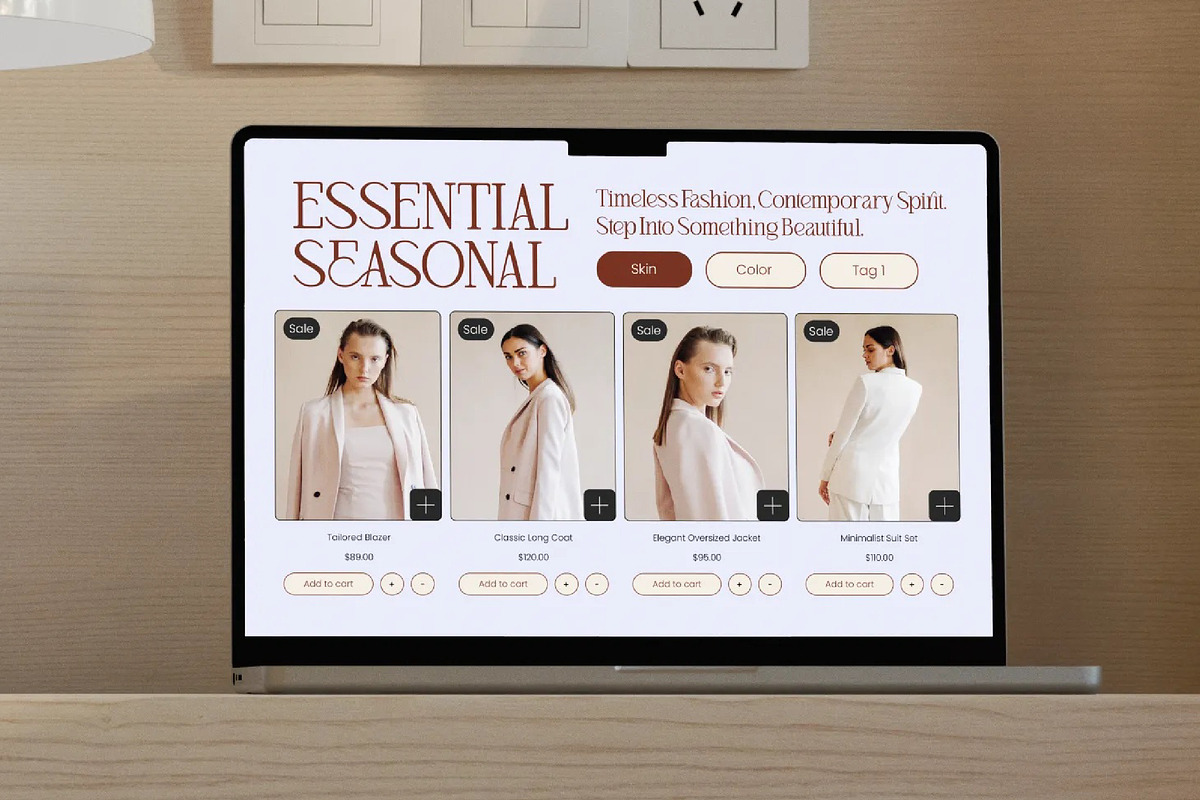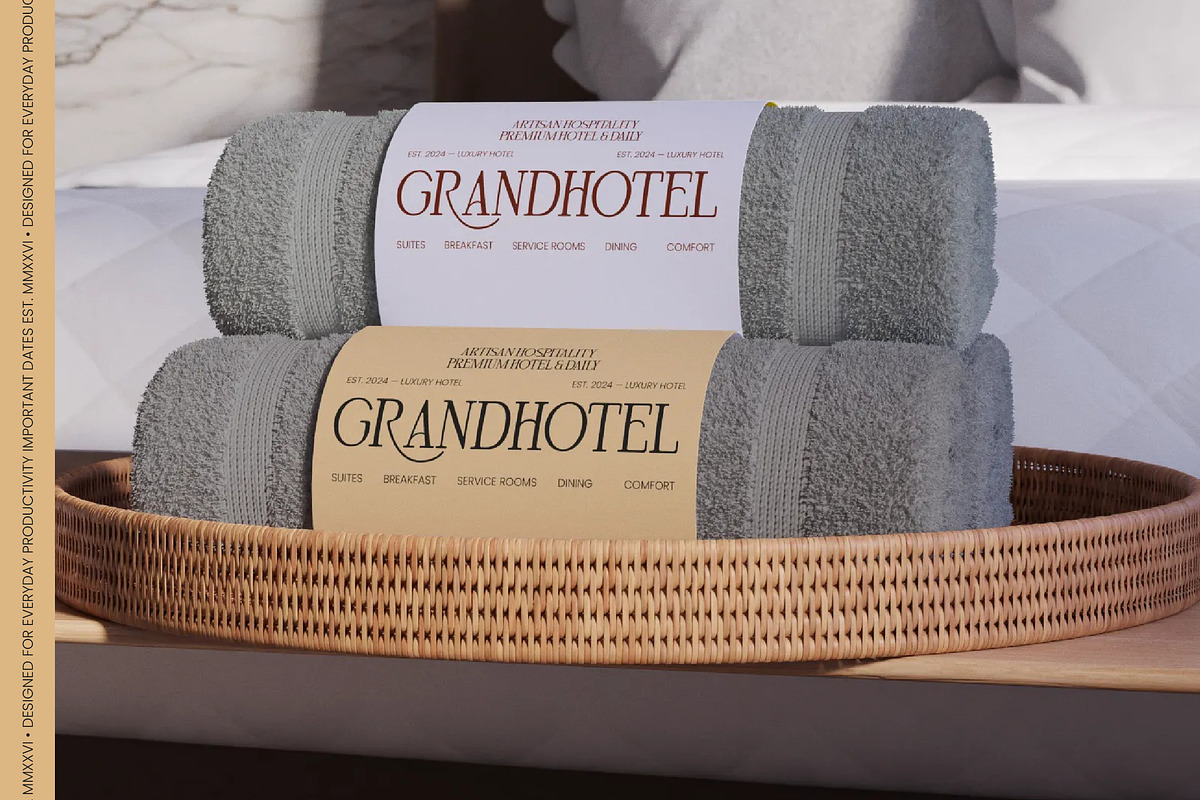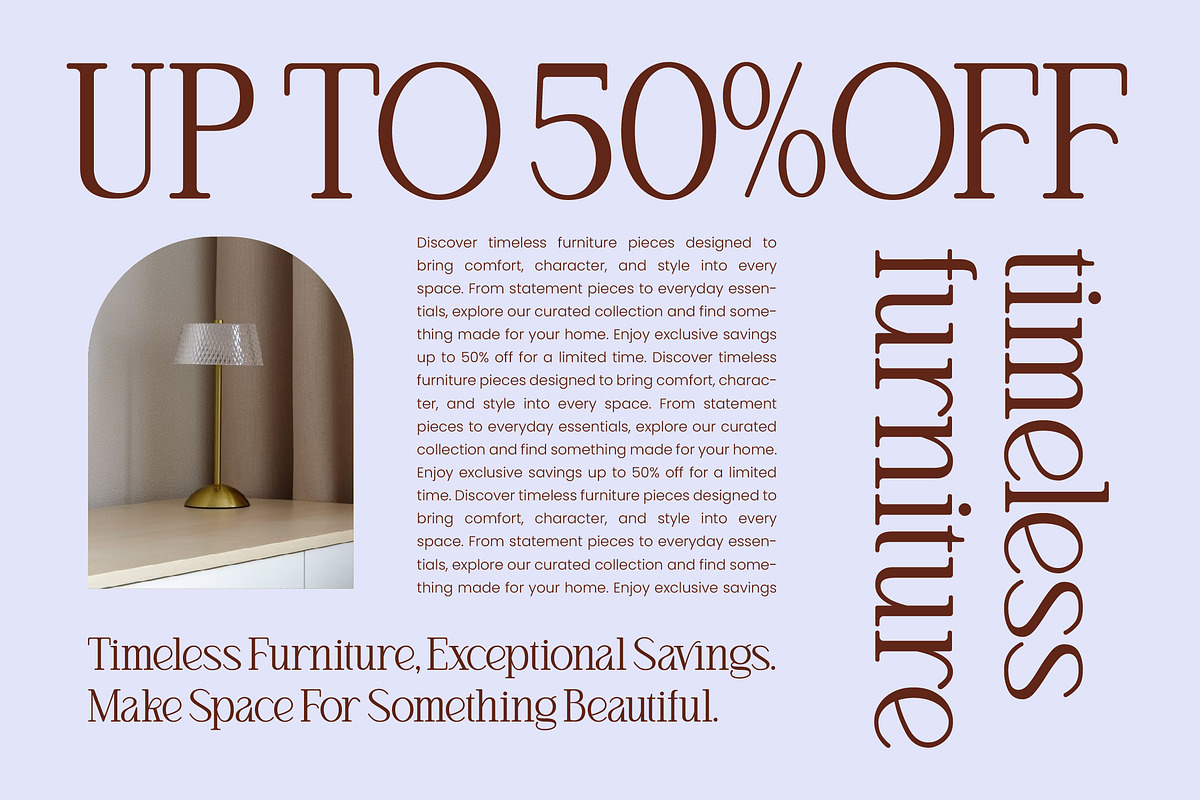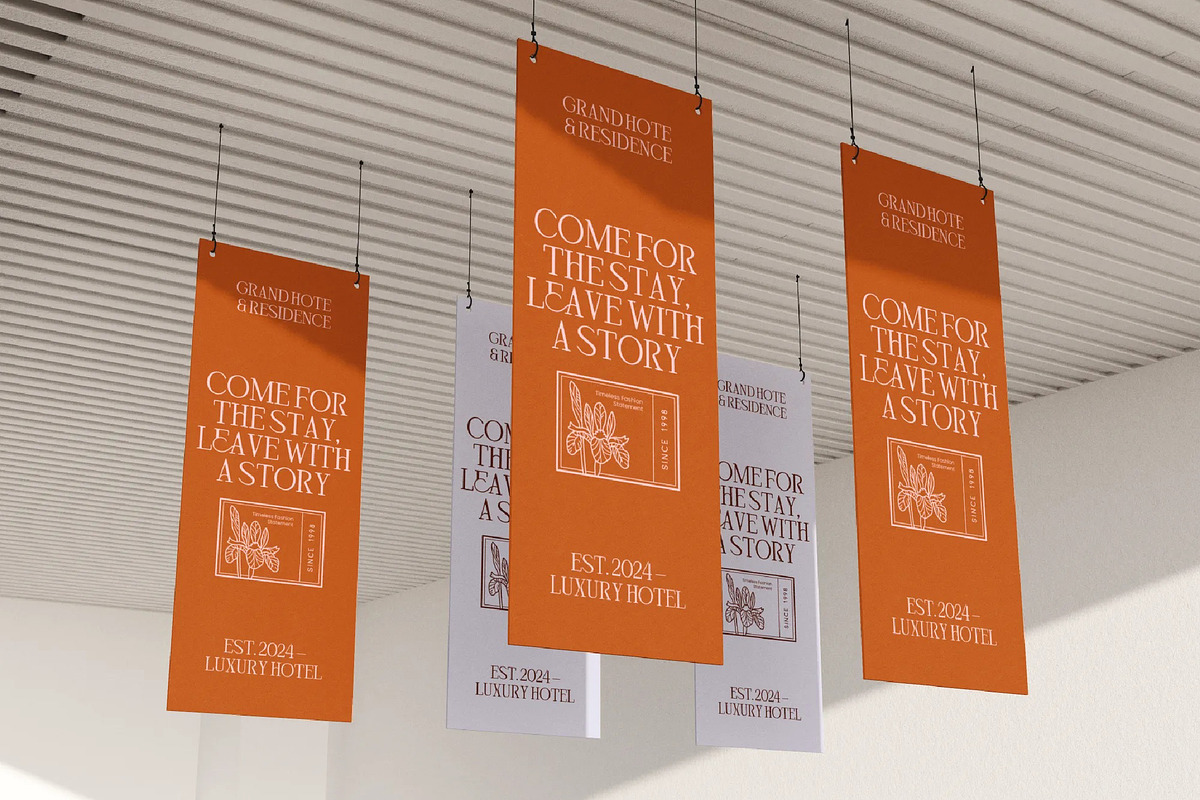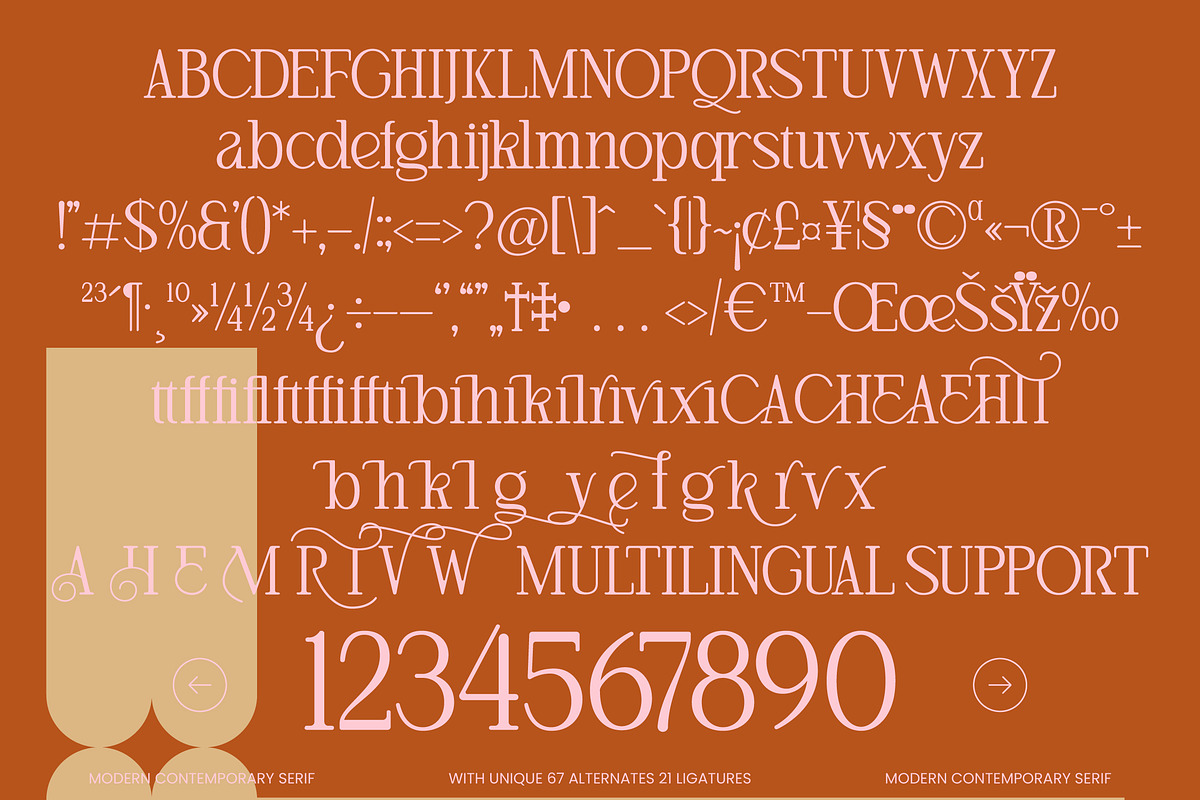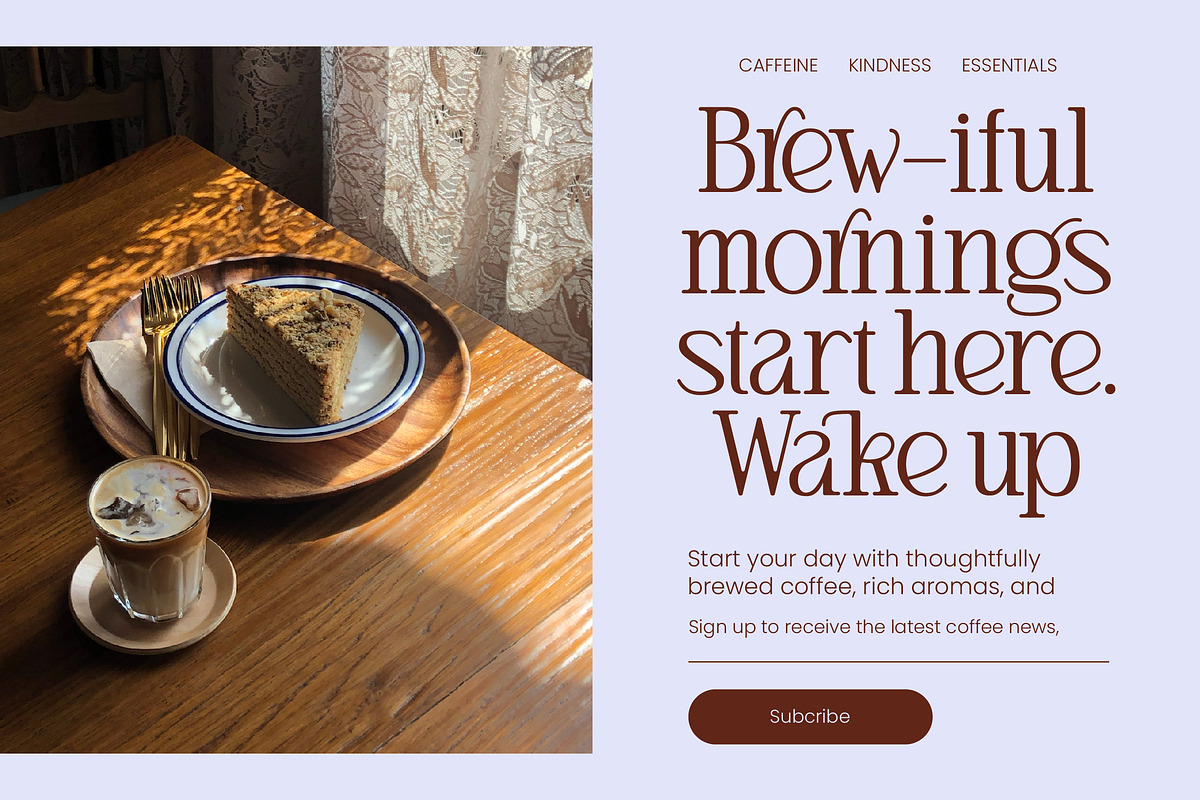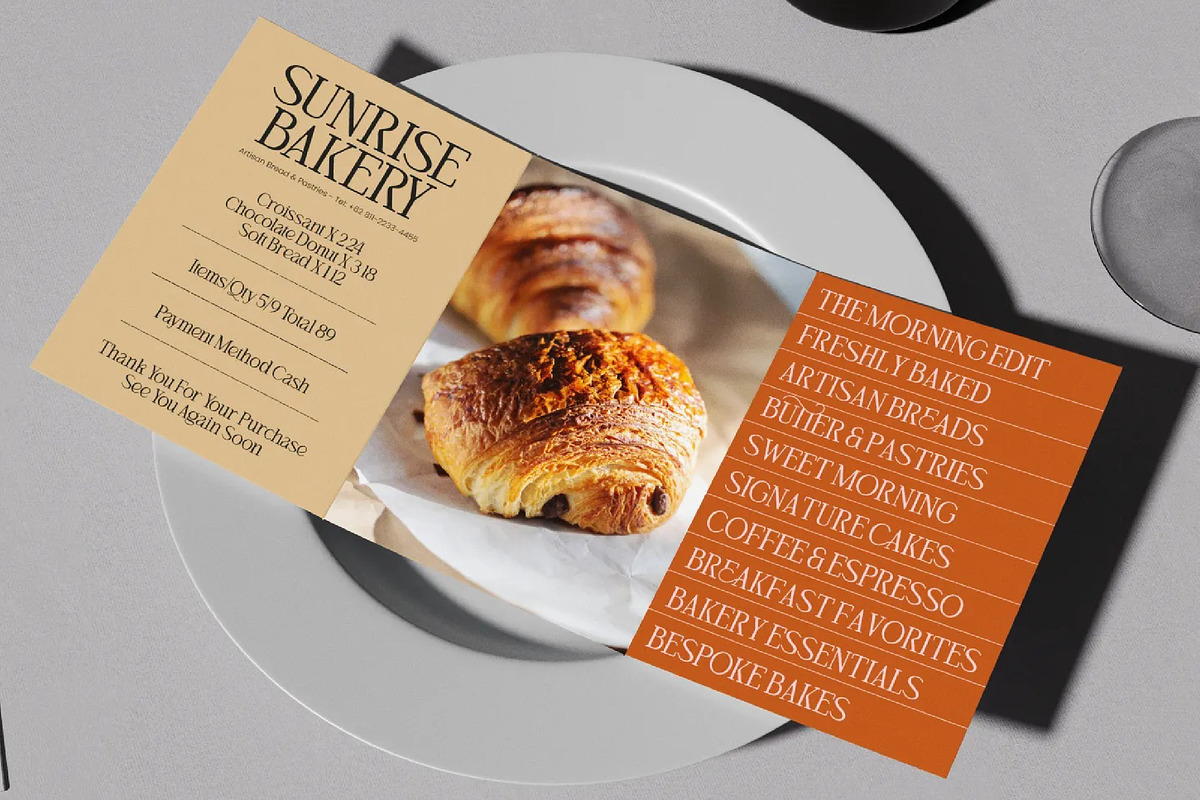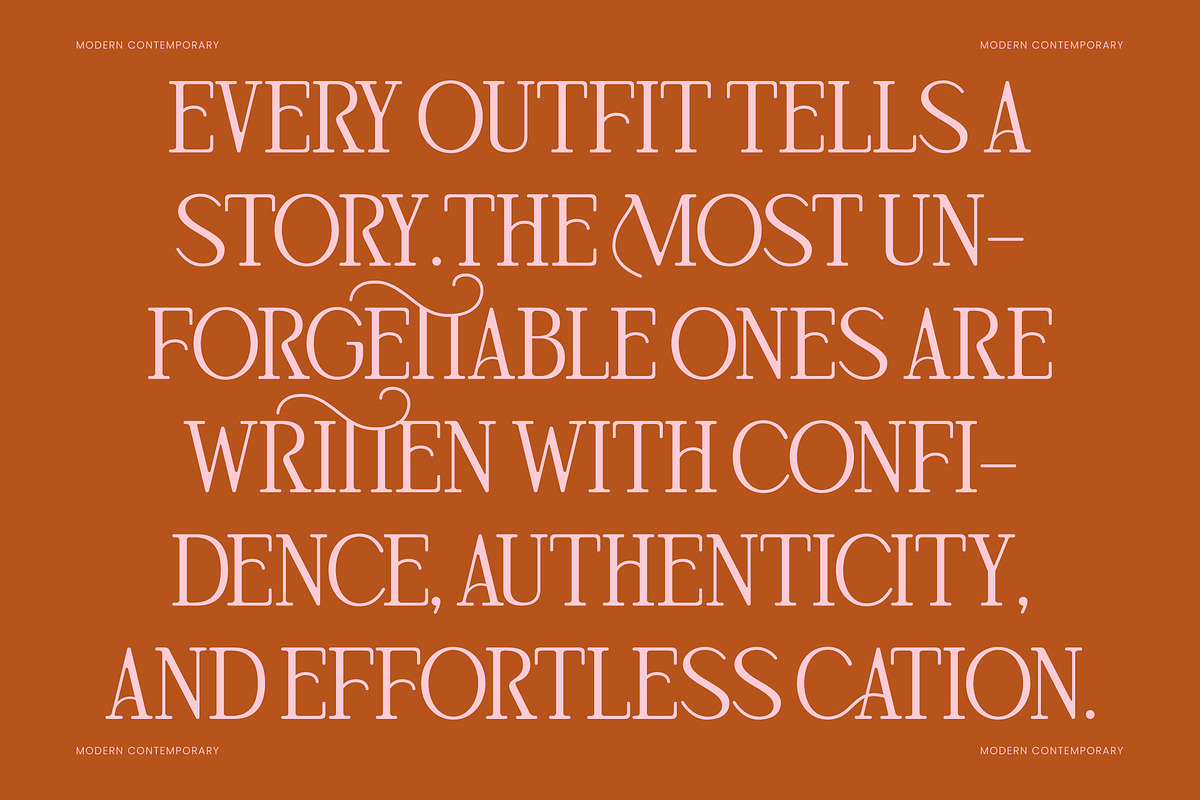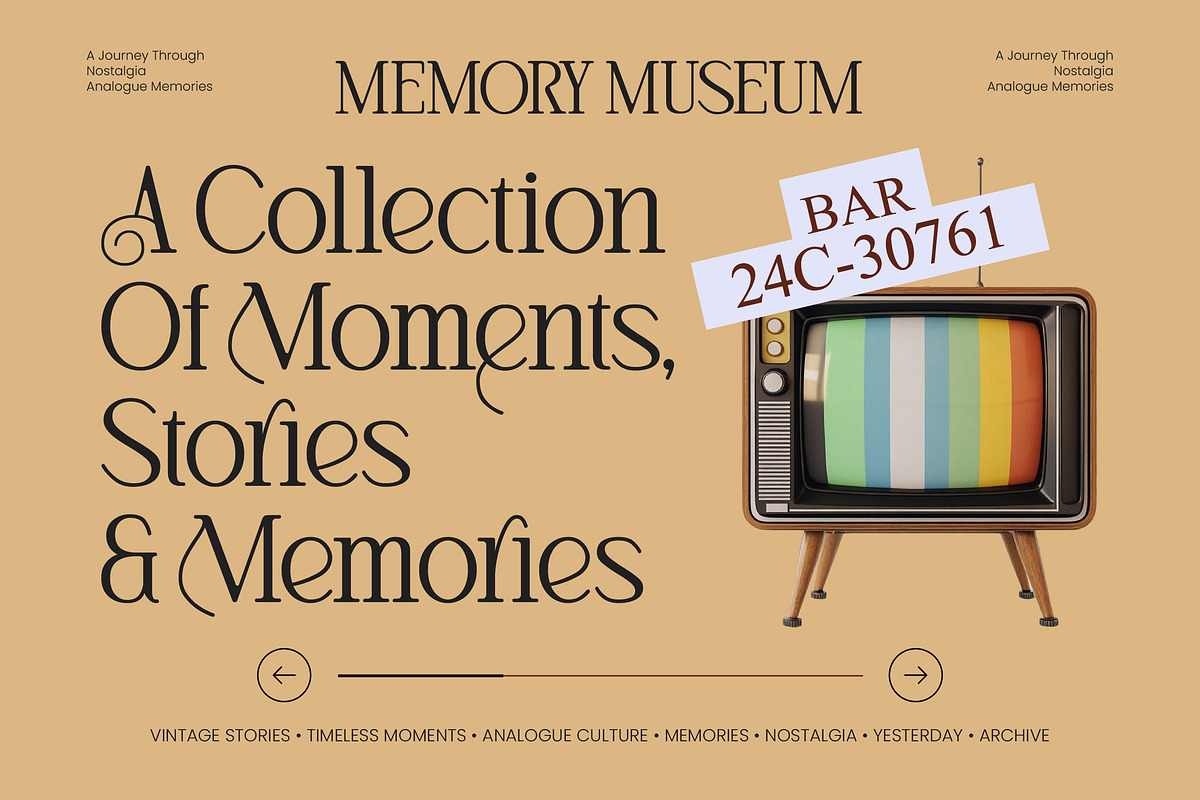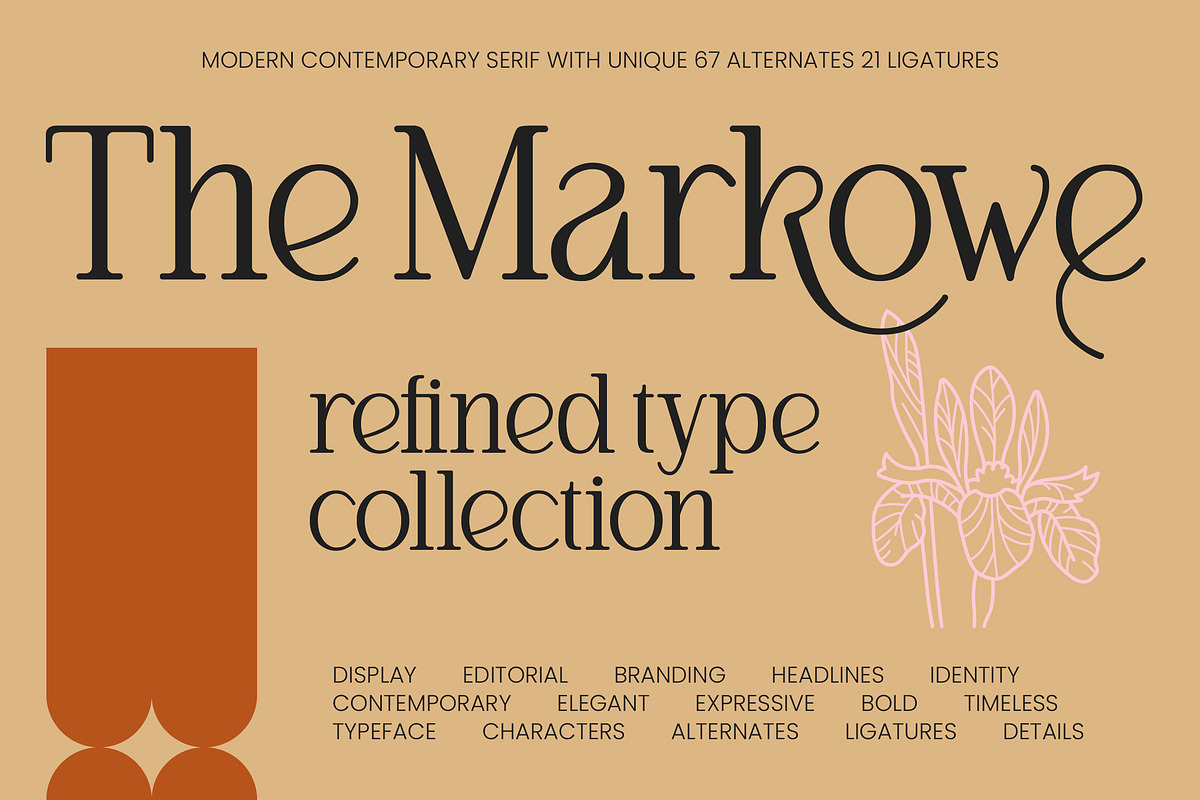
The Markowe Modern Contemporary
The Markowe - Modern Contemporary Serif , The Markowe captures the essence of sophisticated design, weaving together classic elegance with a bold, contemporary spirit that commands attention. It is a refined type collection designed to elevate your visual storytelling to a level of timeless luxury.
Inspired by the delicate balance between structural integrity and fluid grace, this typeface reflects the organic beauty of architectural lines and botanical curves. Its inspiration stems from high-end editorial layouts and the pursuit of a visual identity that feels both established and fresh.
This modern serif display is engineered for maximum luxury typography appeal, offering a high-contrast serif profile that ensures a high-end branding impact. Every stroke in this editorial font is meticulously crafted to provide a sense of prestige and modern sophistication.
Perfectly aligned with the current modern serif trend, this typeface meets the demand for editorial display fonts that offer more than just legibility. It leans into the move toward character-driven typography, allowing designers to create unique, expressive layouts that stand out in a crowded digital landscape.
From high-end logo design to cohesive branding systems, this font excels in editorial layouts, luxury packaging, and romantic wedding stationery. Its versatility makes it the premier choice for fashion magazines and lifestyle brands looking to project an image of effortless chic.
Beyond its stunning base forms, the typeface includes a rich library of ligatures and unique alternates that allow for deep customization. It also features expressive swashes, comprehensive multilingual support, and a full set of international characters to cater to global design needs.